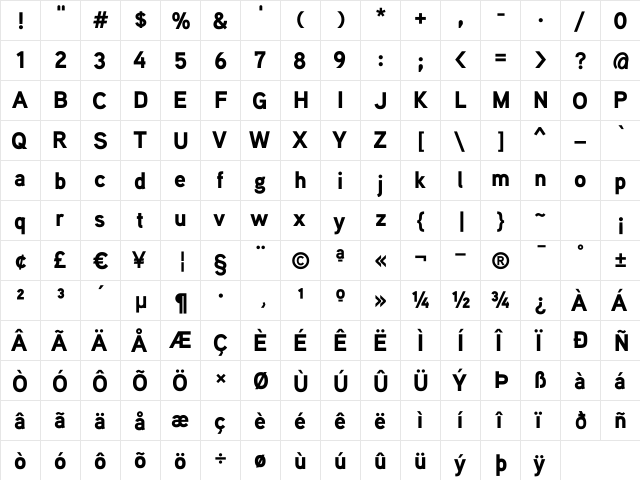
Aaux ProBlack Regular
Design Context for Aaux ProBlack Typeface
Aaux ProBlack is a composed and adaptable typeface that performs quietly and consistently across a wide range of design contexts.
Pro Tip: Use Aaux ProBlack in both headline and body roles to test its range before committing to a single application.